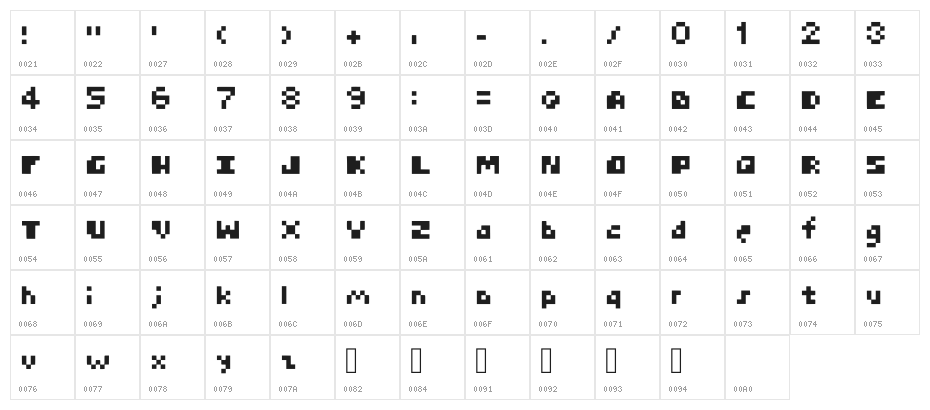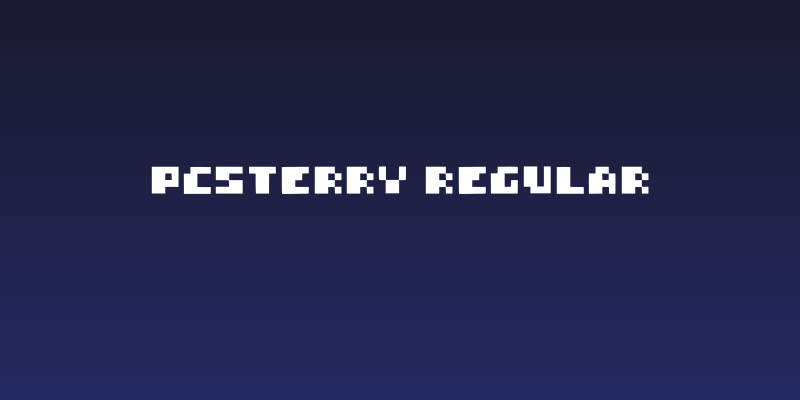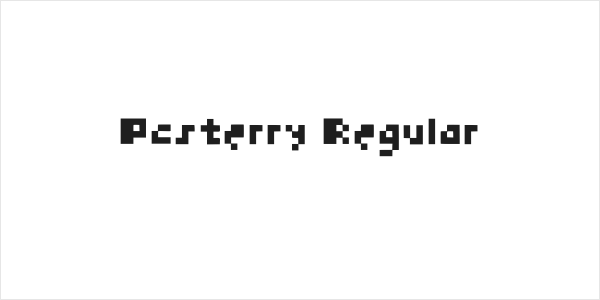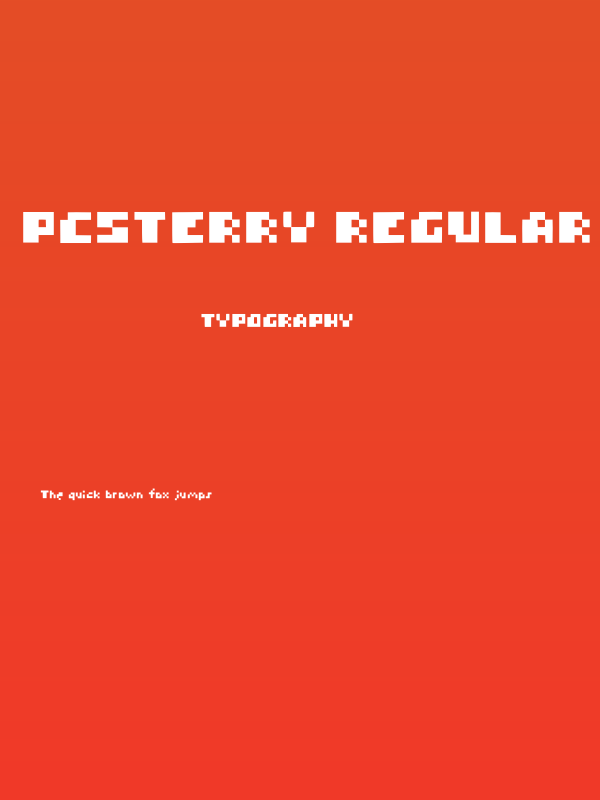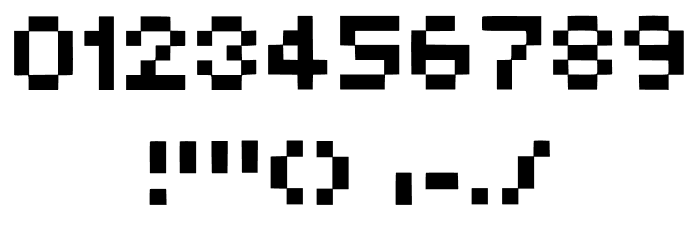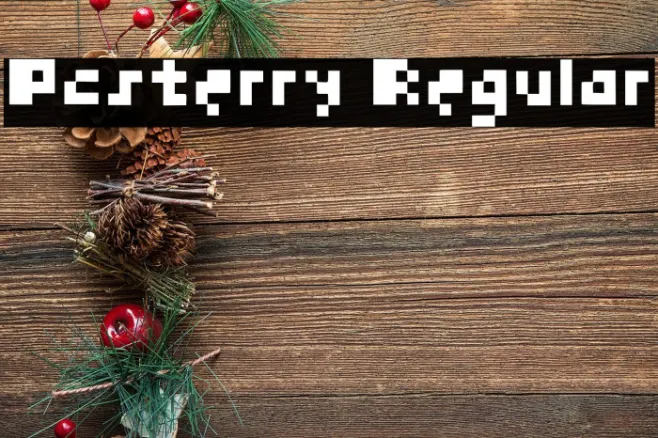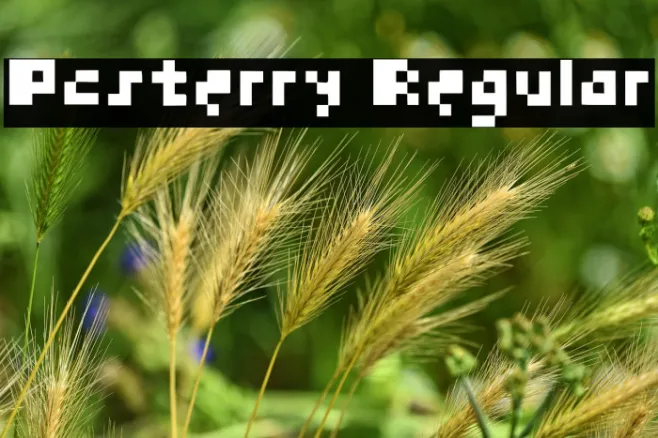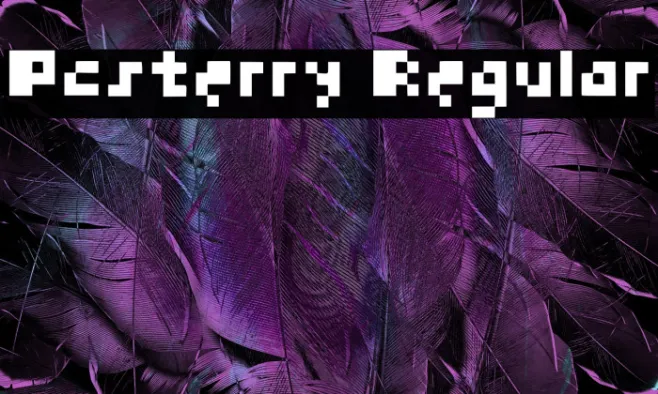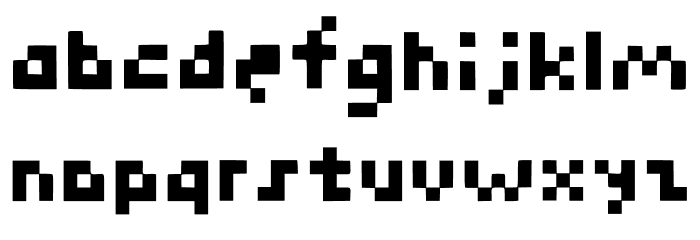
Pcsterry Regular Font
Pcsterry Regular Description
This font features a bold, pixelated design reminiscent of early digital displays and video games. Each character is constructed with a blocky, geometric style that emphasizes a retro, 8-bit aesthetic. The uppercase and lowercase letters maintain a consistent height, contributing to a uniform appearance across text. Numbers and special characters follow the same pixelated pattern, ensuring visual coherence. The font's distinct style makes it ideal for projects that aim to evoke nostalgia or a digital, tech-oriented theme.
| Proposed Projects | Ideal for video game design, retro-themed posters, digital art projects, and tech-related branding. |